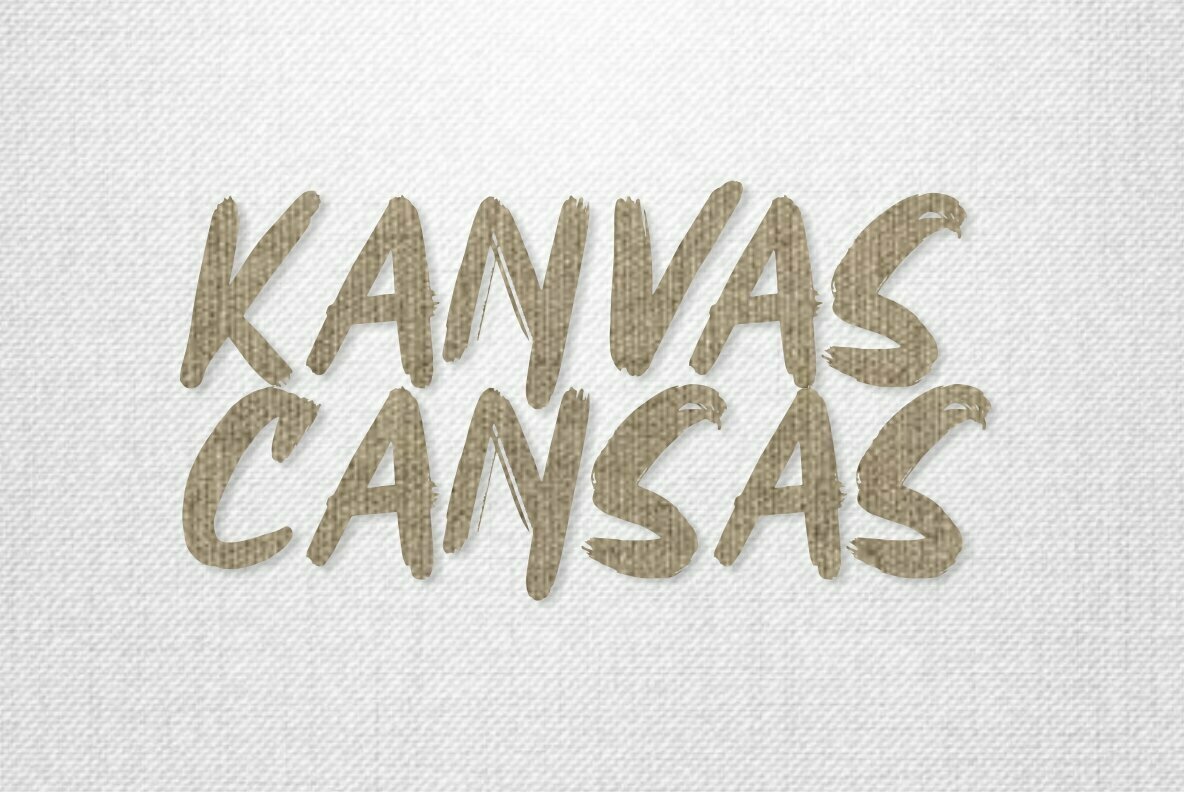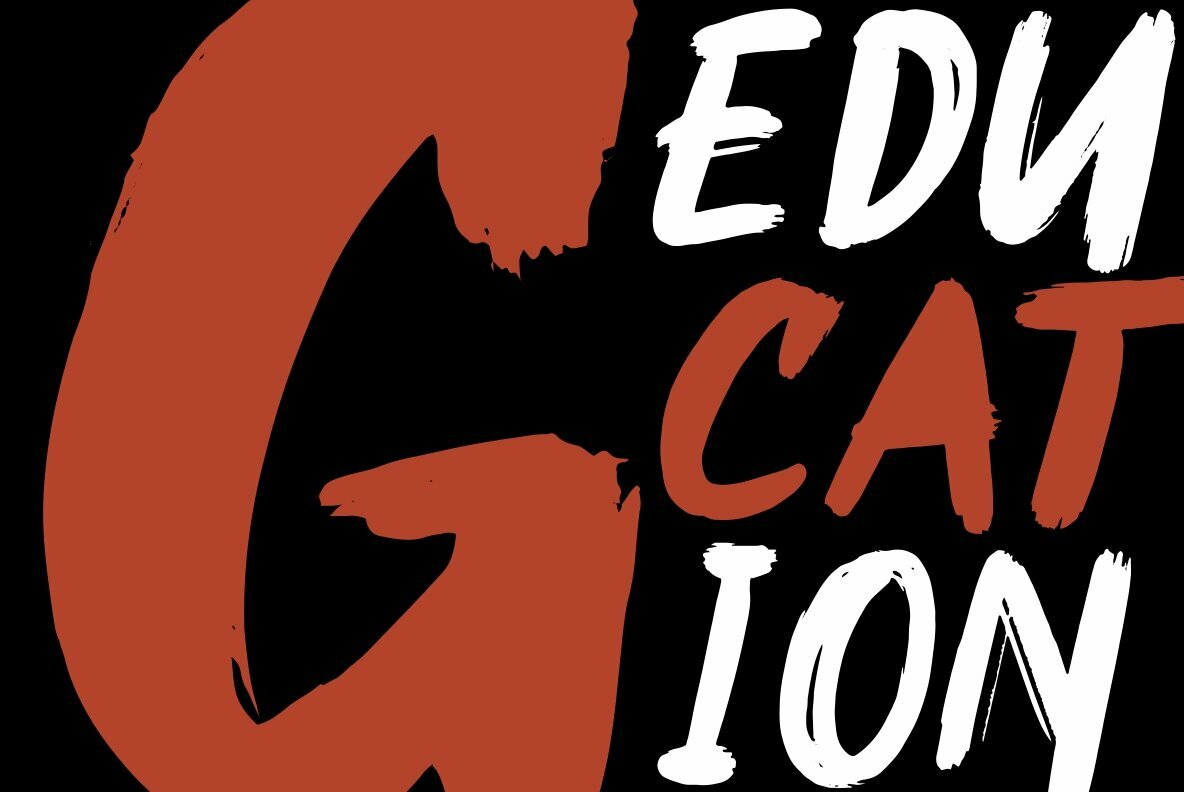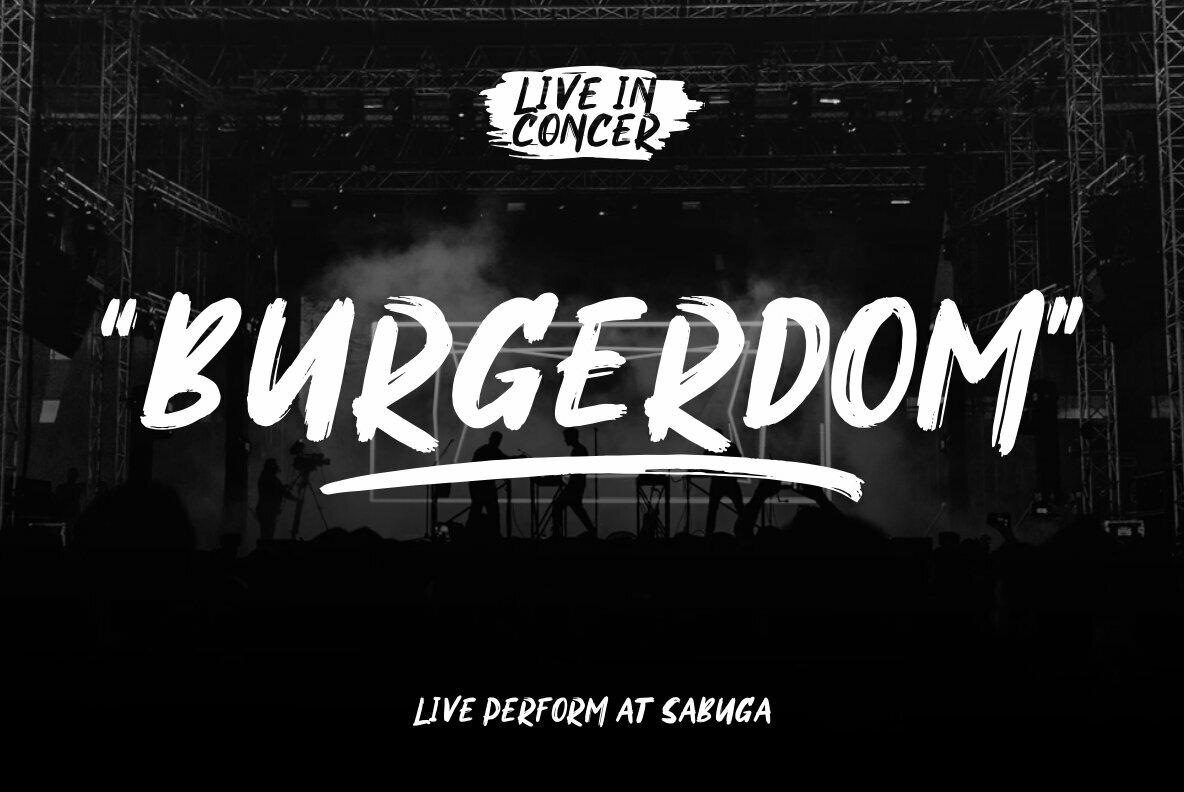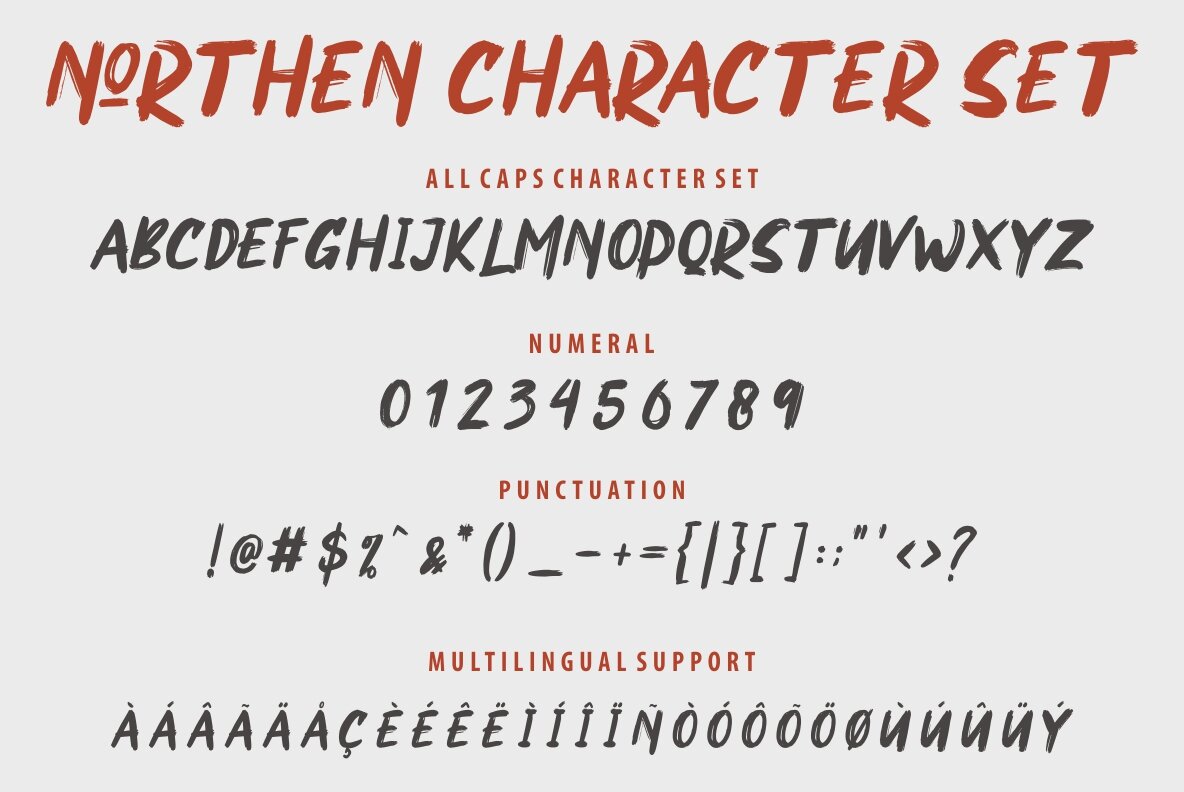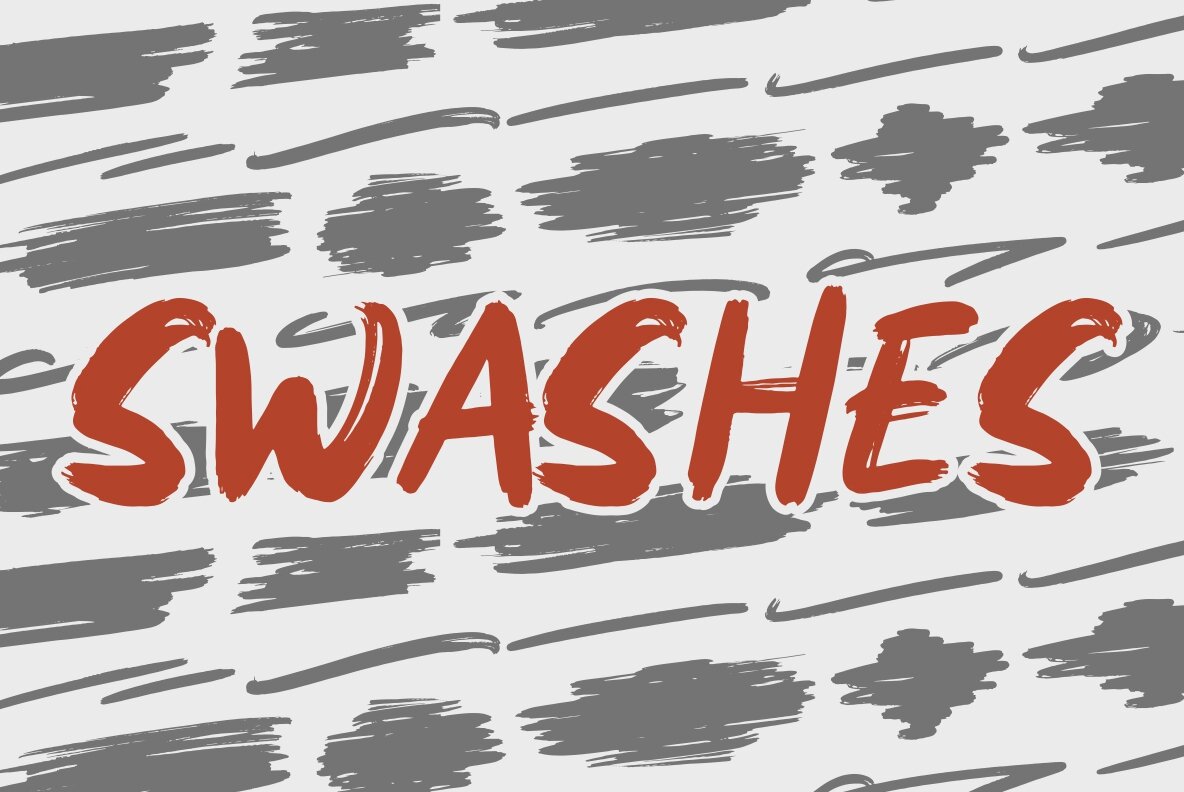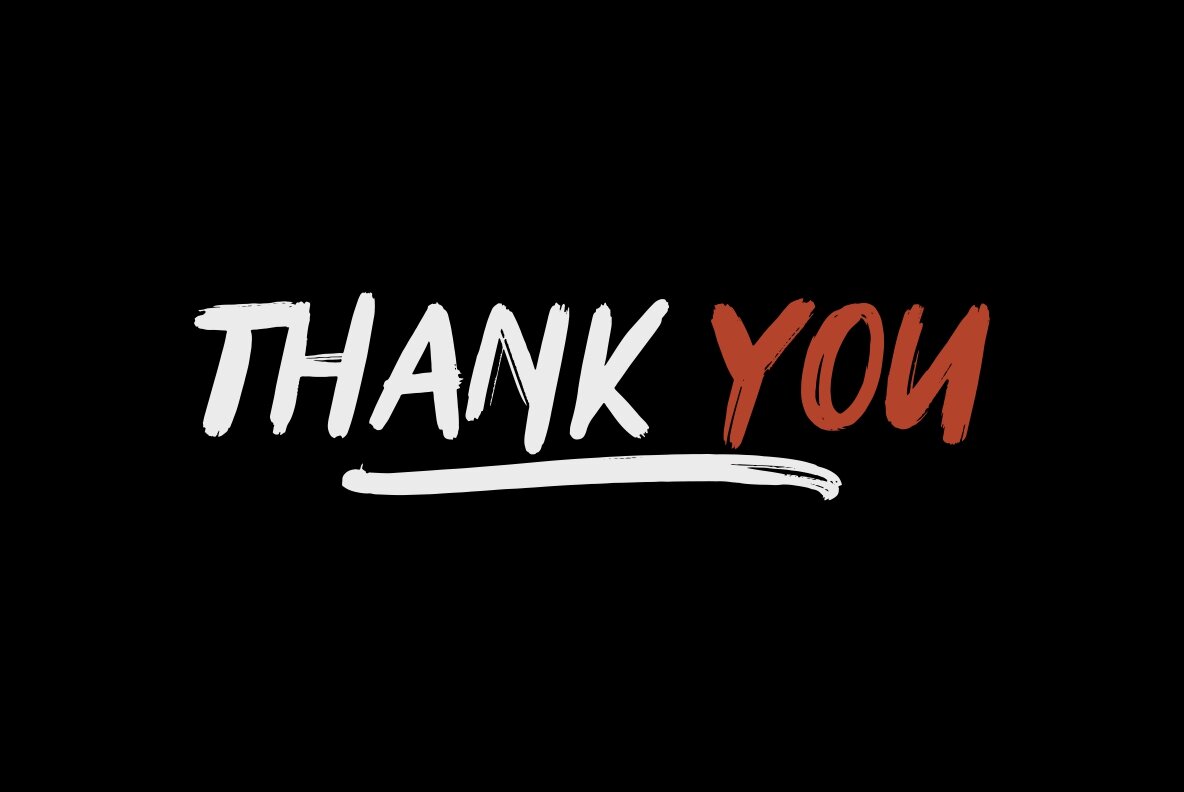
NORTHEN: Urban-Inspired Script Font
NORTHEN offers a captivating blend of fluid curves and a vibrant urban flair, perfectly suited to modern design projects. This script font imbues your work with dynamic style, enhancing logos, brand imagery, handwritten quotes, product packaging, and more with its eye-catching appeal.
• Multilingual Support – Accessible for global projects.
• Detailed Dry Brush – Adds texture and depth.
• Extra Swash – Offers additional stylistic options.